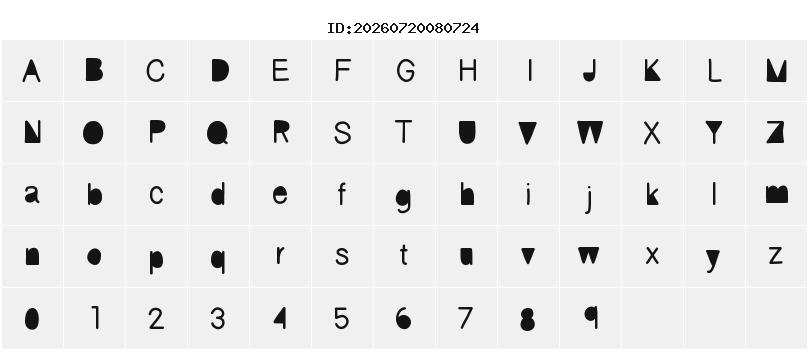
About fickle.ttf
fickle.ttf is a modern, elegant sans-serif font designed for ultimate readability and visual harmony. Perfect for branding, headlines, web design, and print materials.